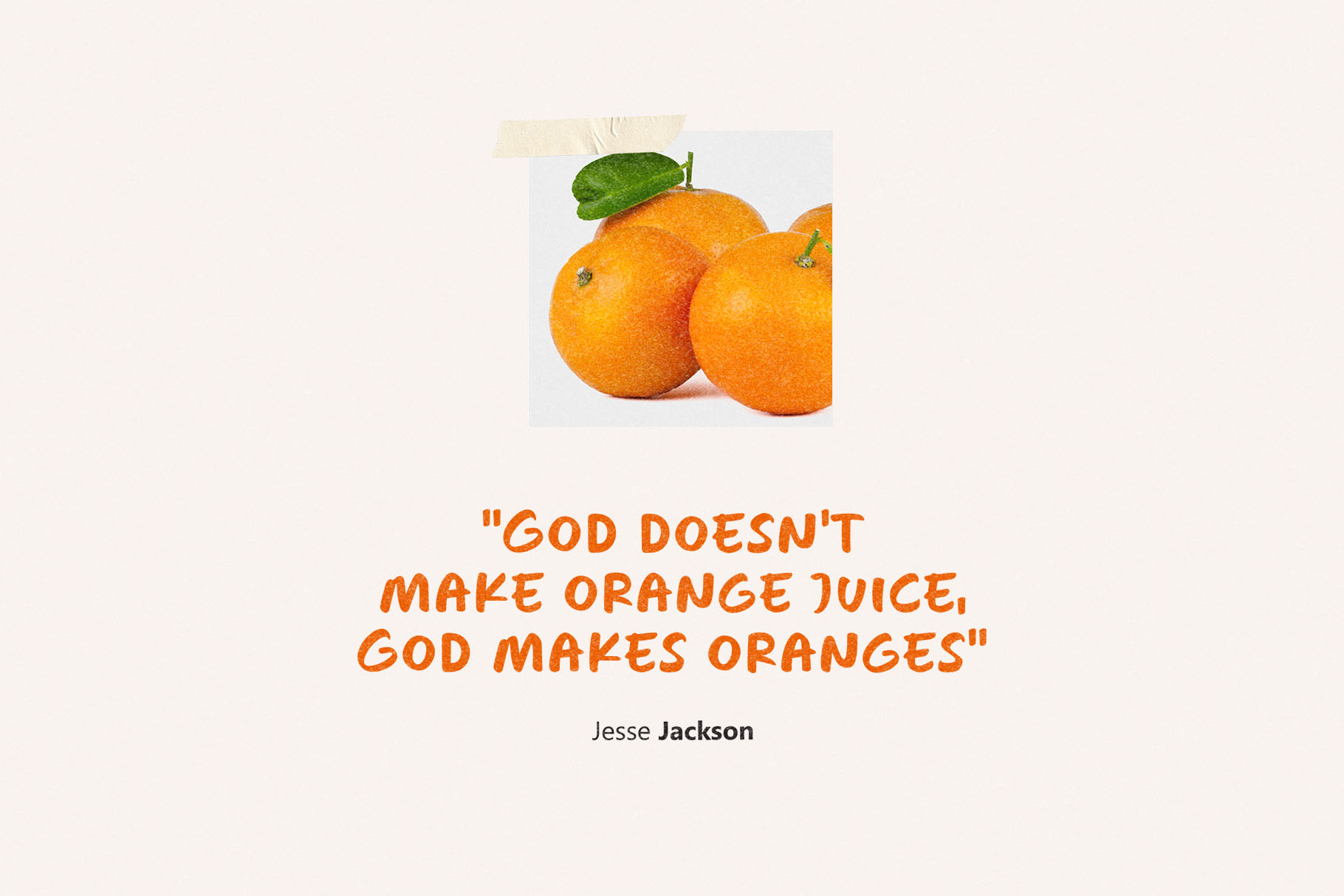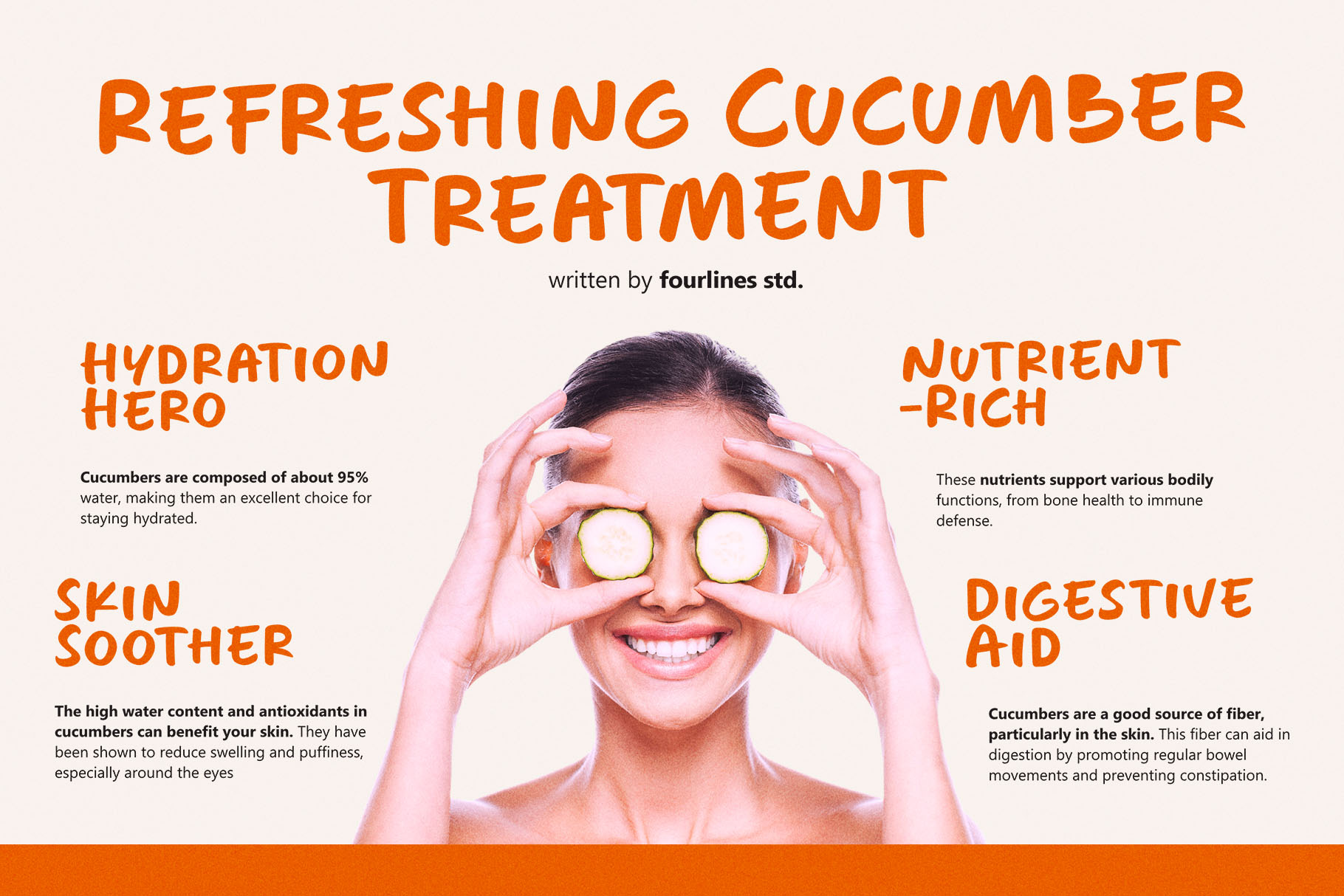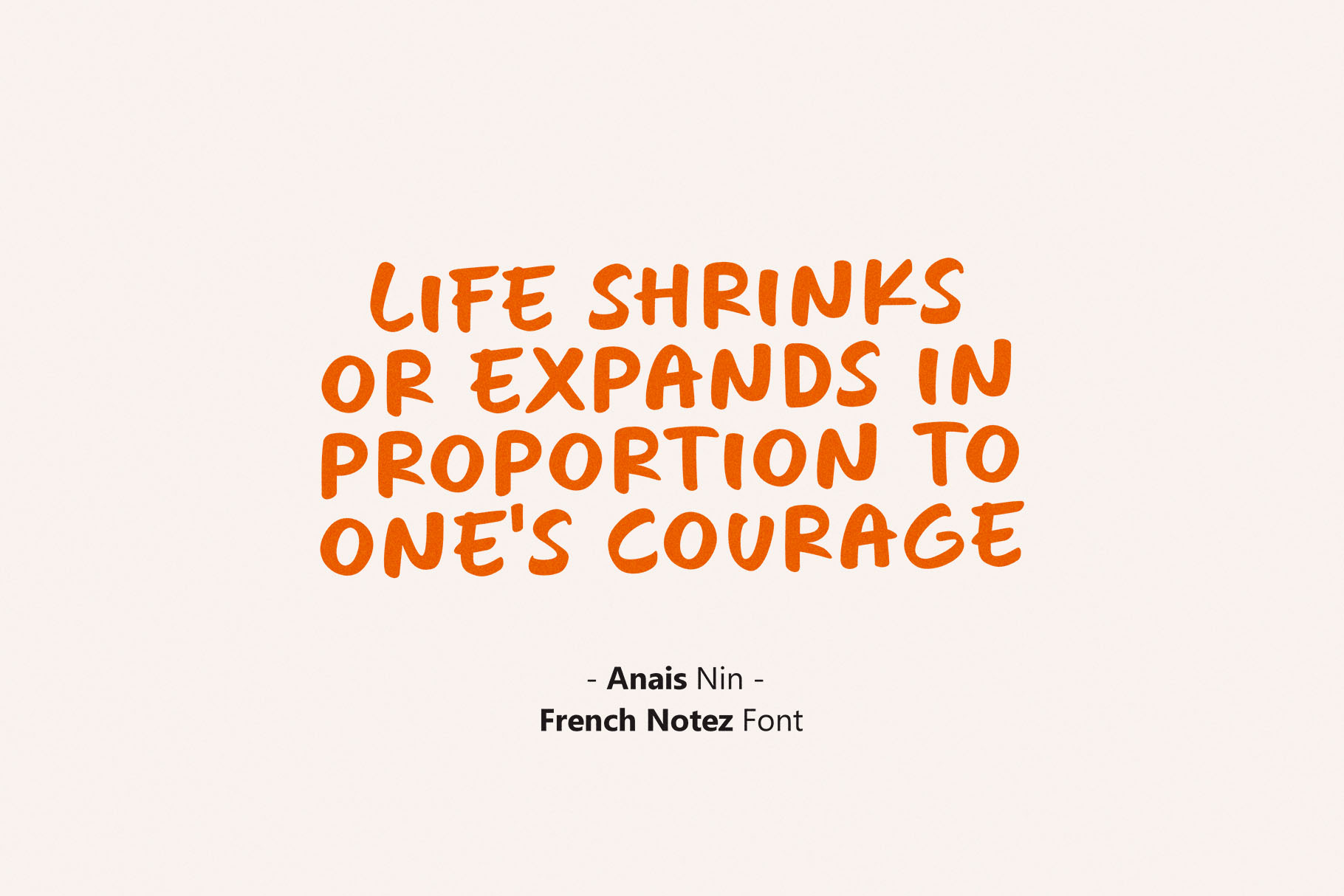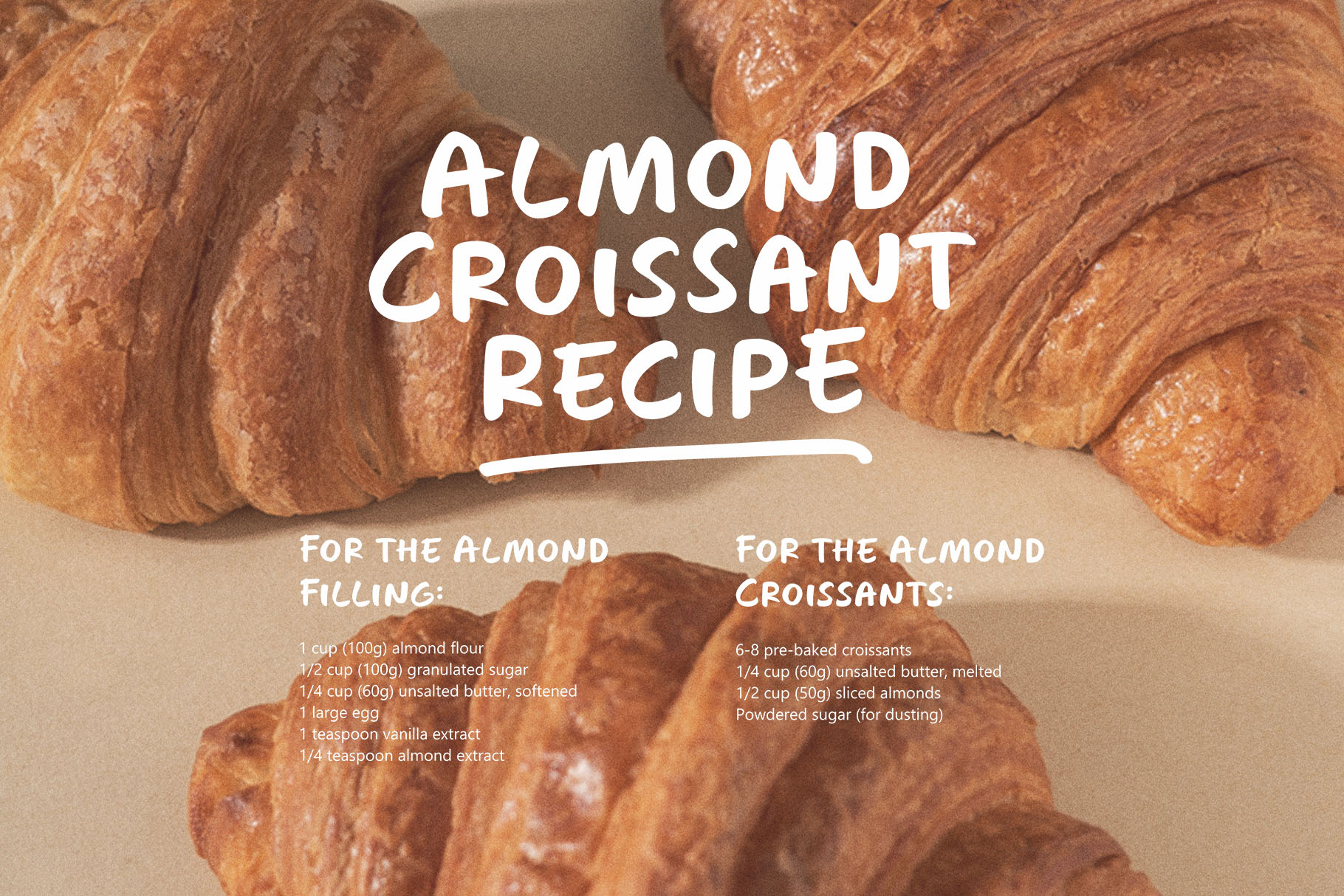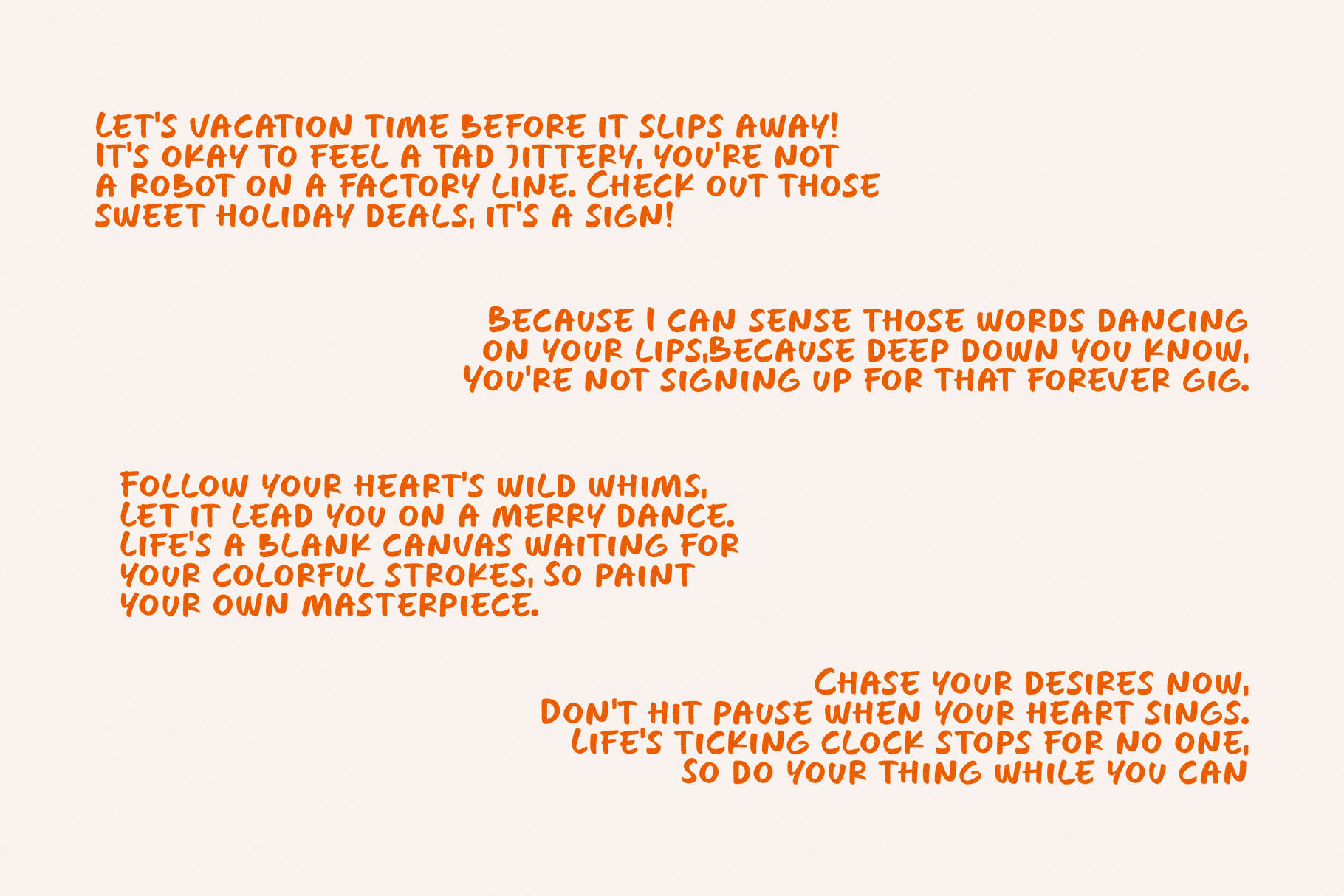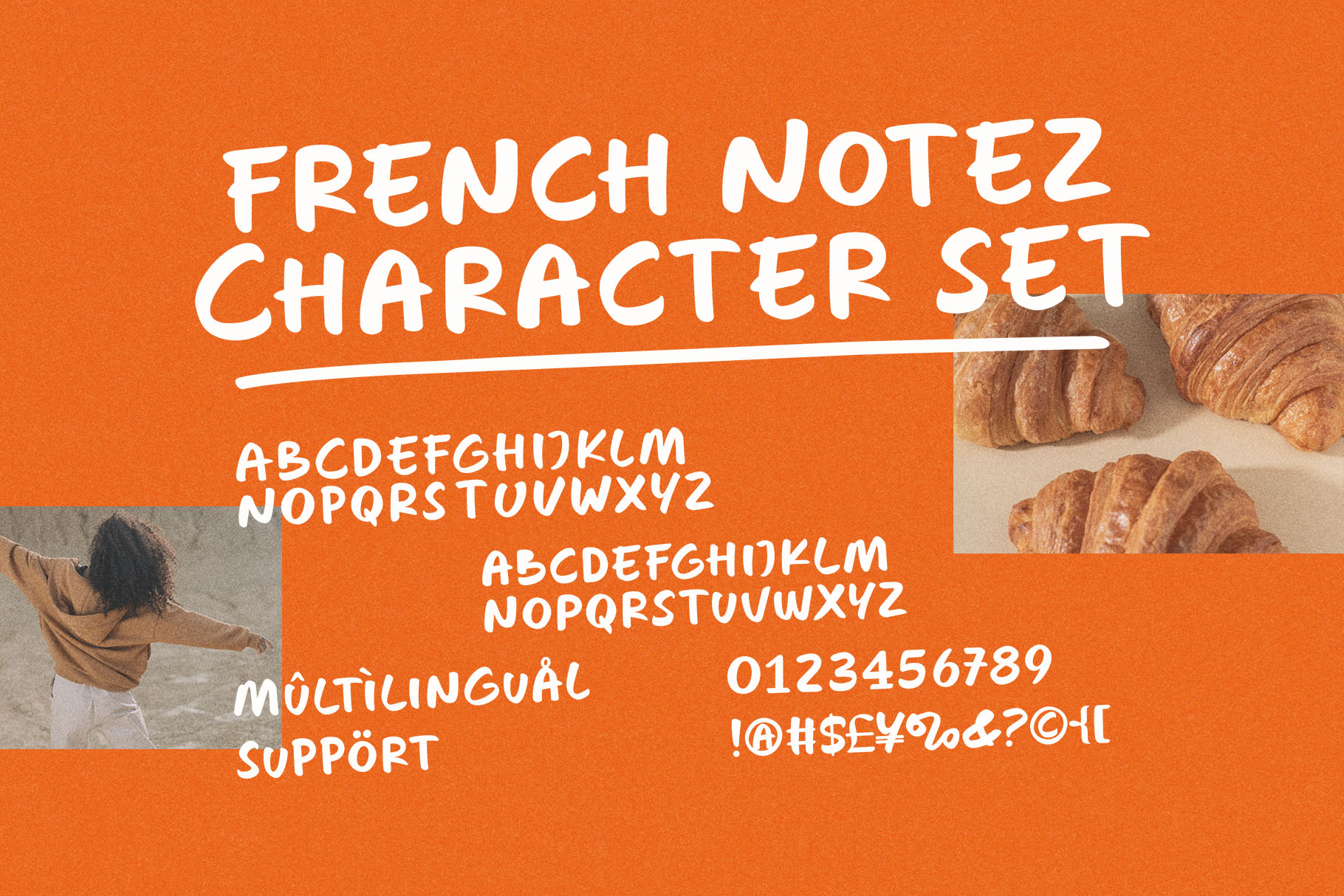
- French Notez – A Handwritten Font
This handwritten font, influenced by the striking strokes of a marker, adds a modern flair to your creative endeavors. Its relaxed yet bold design makes it the perfect choice for brands, social media, and promotional materials that aim to make a statement.